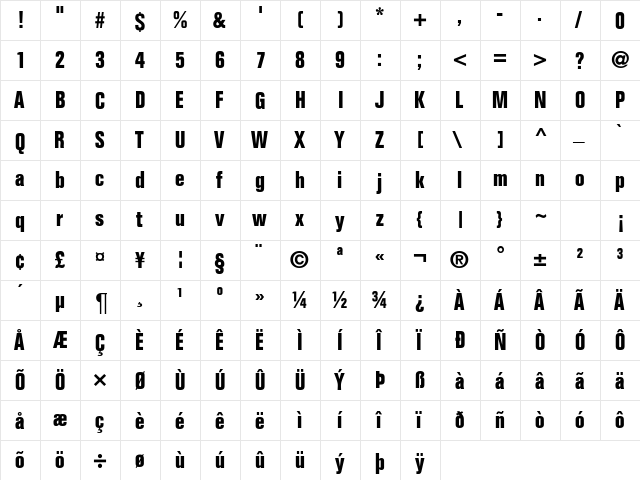
FoldMdrnConDB Normal
Design Context for FoldMdrnConDB Typeface
FoldMdrnConDB takes a measured approach to typography — its balanced proportions and neutral character make it a reliable workhorse for both digital and print work. Its narrow stance lets it pack a punch even in space-constrained designs.